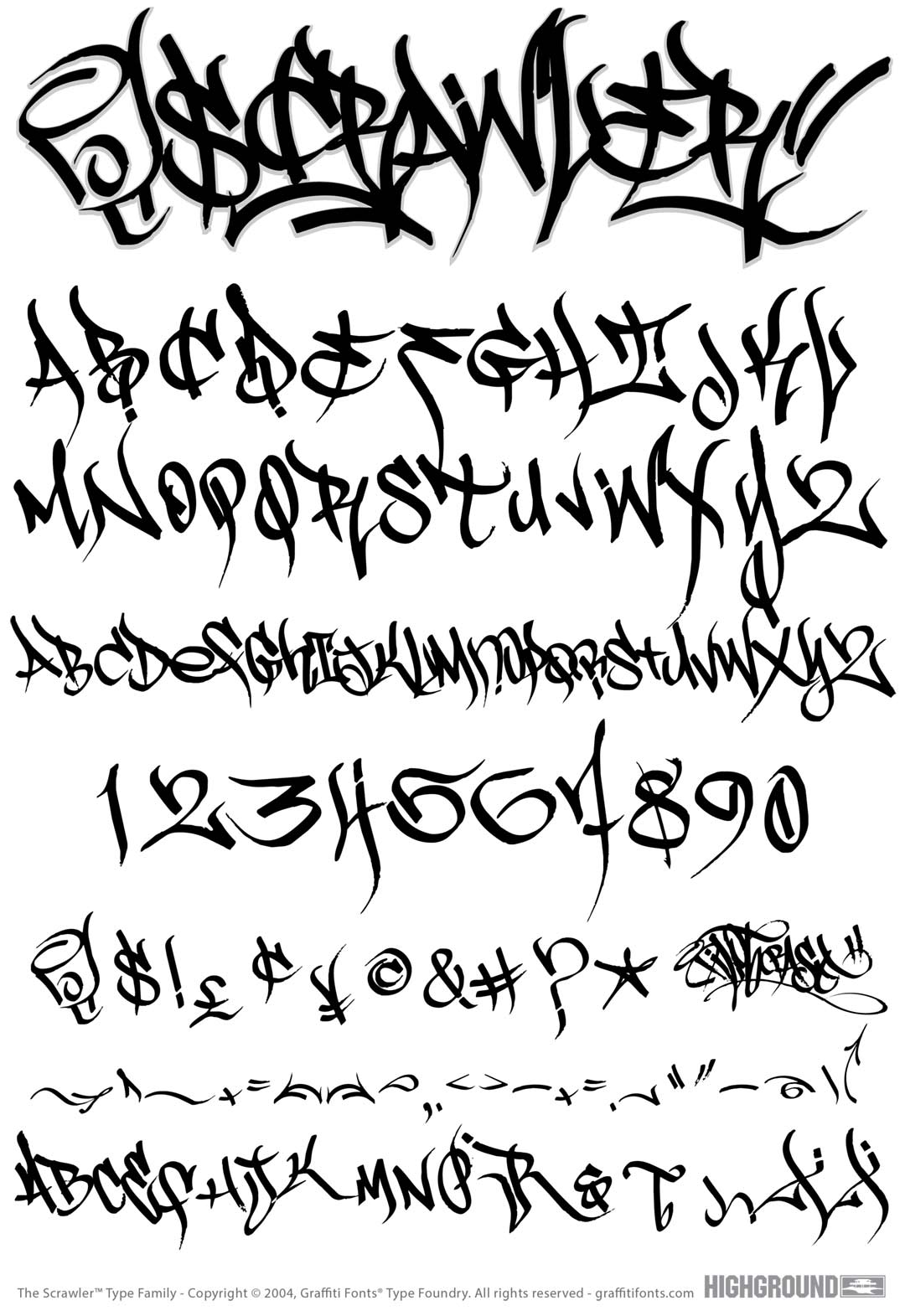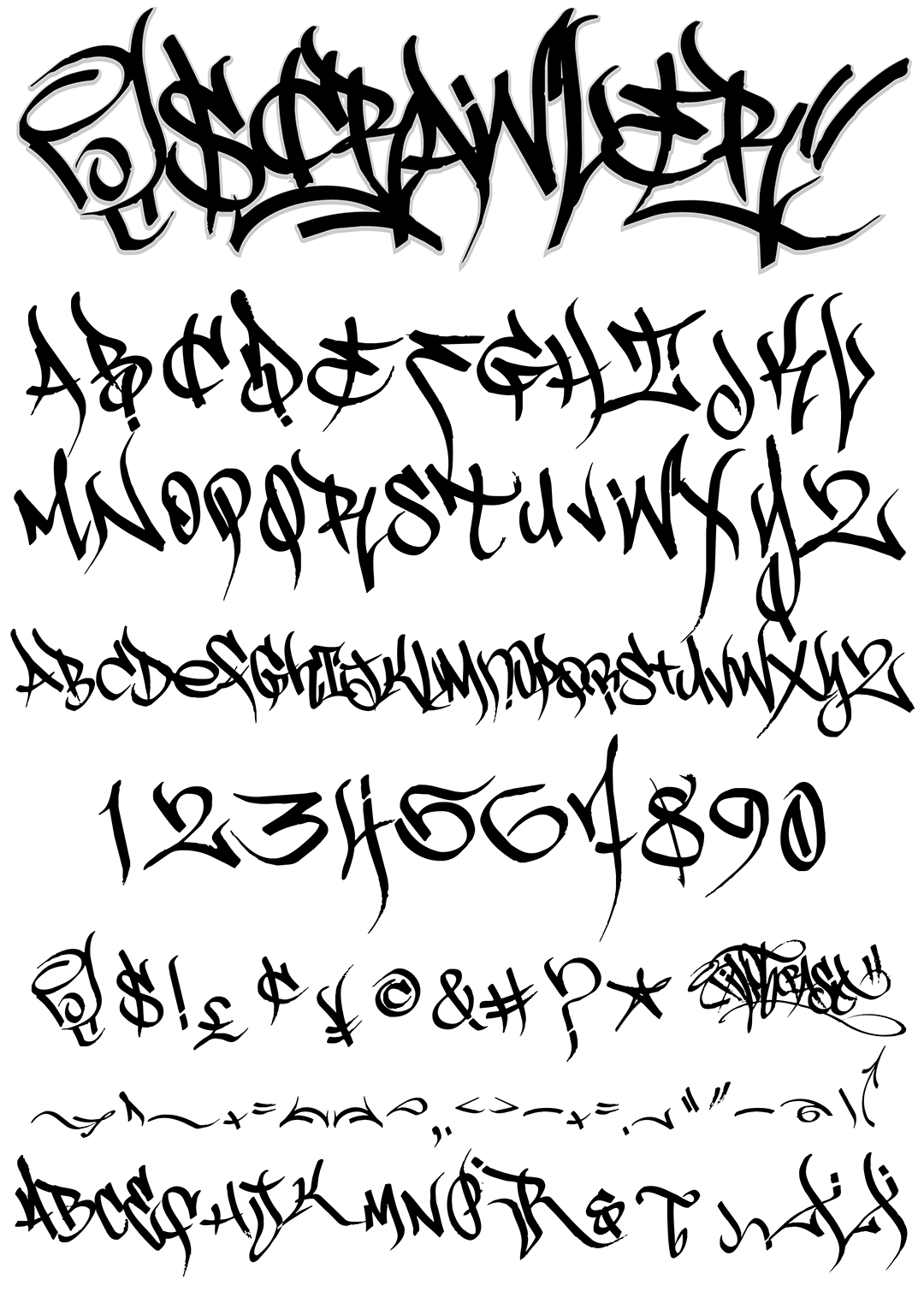
Scrawler Font
Scrawler Title Image
Scrawler Graffiti Alphabet
Scrawler Graffiti Font Family
136 wild, tag style characters in the main font & 61 more in the additional "Scrawler 3rd" font including 4 alphabets, numbers, punctuation, symbols, flourishes & artwork. Scrawler is a chisel tip marker style for creating realistic graffiti handstyles. Mix and match letters from all 4 alphabets & add flourishes to create complex custom tags.